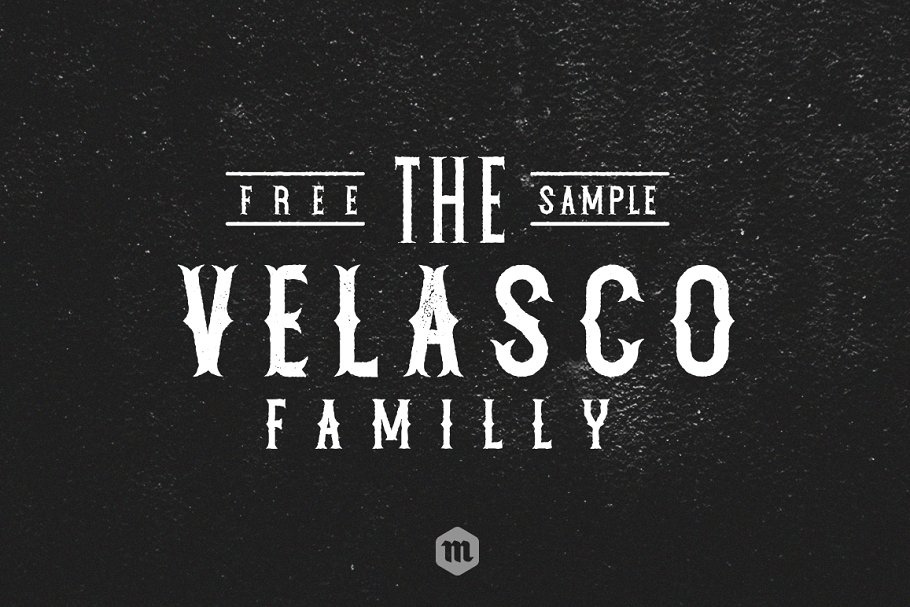
Velasco Font
This Spanish typeface is perfect for Latin restaurants, Spanish cultural centers, Mediterranean brands, wine labels, flamenco venues, Hispanic heritage projects, Latin music promotions, Spanish language publications, and authentic cultural design applications.
What makes this font exciting is its Iberian elegance combined with Spanish authenticity, offering designers a passionate typeface that captures the essence of Spanish culture while delivering Mediterranean sophistication and flamenco visual flair.
The Velasco font family includes light, regular, medium, bold, ornamental, and cultural variations, providing complete Spanish design solutions for creating authentic Hispanic visual identities.
Whether you're developing Spanish cultural brands or crafting Mediterranean design experiences, Velasco Font Free Download brings exceptional Spanish atmosphere and cultural authenticity to every application. This passionate typeface combines traditional Spanish typography with contemporary cultural design, creating letterforms that evoke passion and celebrate Hispanic heritage. The font's cultural construction and authenticity-ready details make it perfect for brands seeking immediate Spanish recognition.
Velasco Font features carefully crafted Spanish styling with authentic cultural character that conveys genuine Hispanic expertise. Each character has been designed with passionate proportions and Mediterranean elements that enhance the cultural aesthetic. The font's Spanish qualities make it particularly effective for cultural brands and heritage applications.
Professional designers choose Velasco Font for projects requiring authentic Spanish credibility and cultural atmosphere. Its Hispanic heritage makes it exceptionally well-suited for Spanish restaurants, cultural organizations, and Mediterranean lifestyle brands. The font's versatile cultural variations allow designers to control the Spanish intensity, from subtle Mediterranean elegance to full flamenco celebration.
The complete Velasco Font package offers extensive Spanish ornaments and cultural decorative elements that enhance the authentic aesthetic. Advanced Mediterranean features allow designers to create complex Spanish effects with multiple heritage-inspired options. This comprehensive cultural toolkit ensures designers have everything needed to create authentic Spanish communications that celebrate the rich heritage of Iberian culture and passionate Mediterranean expression.